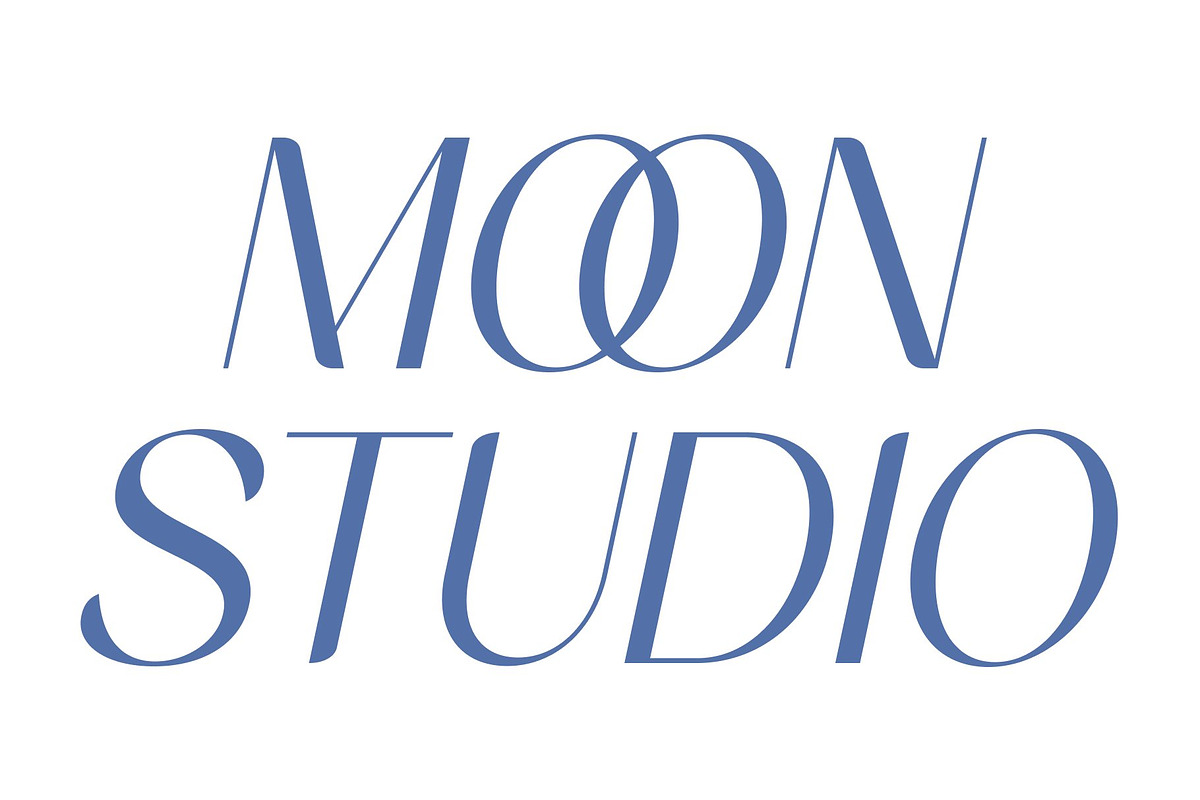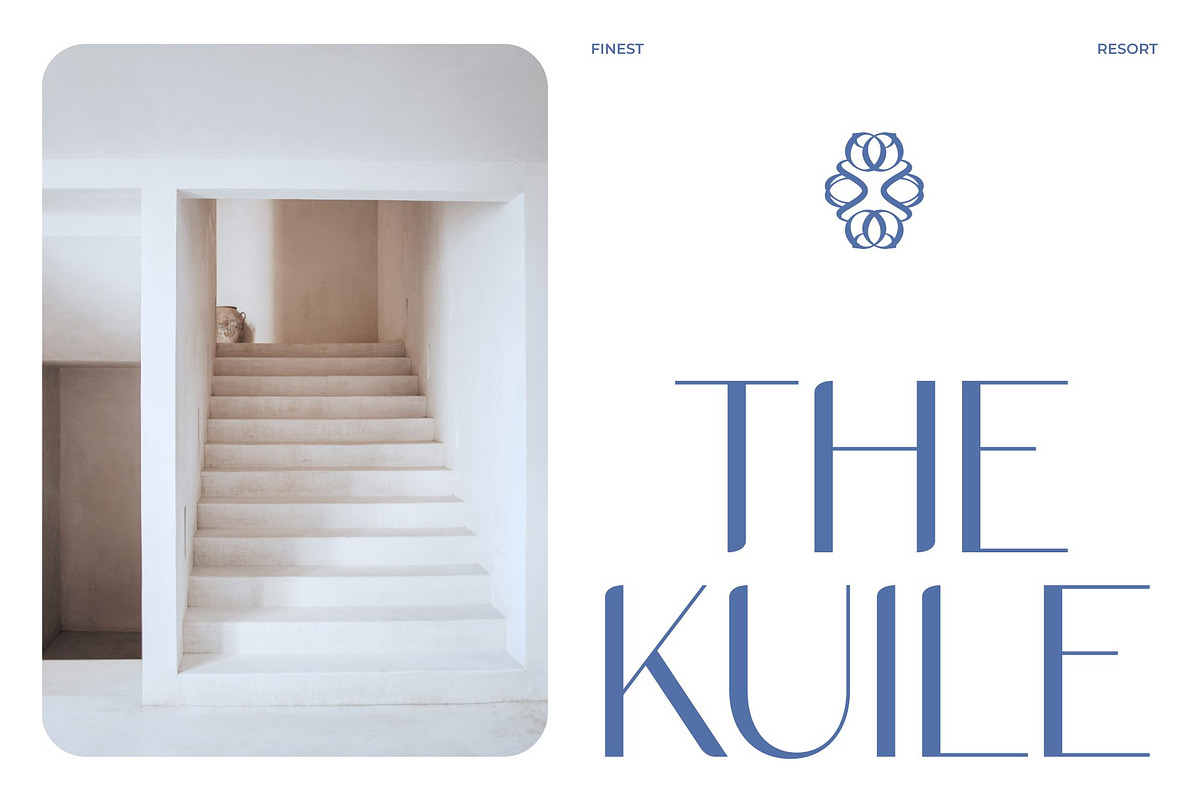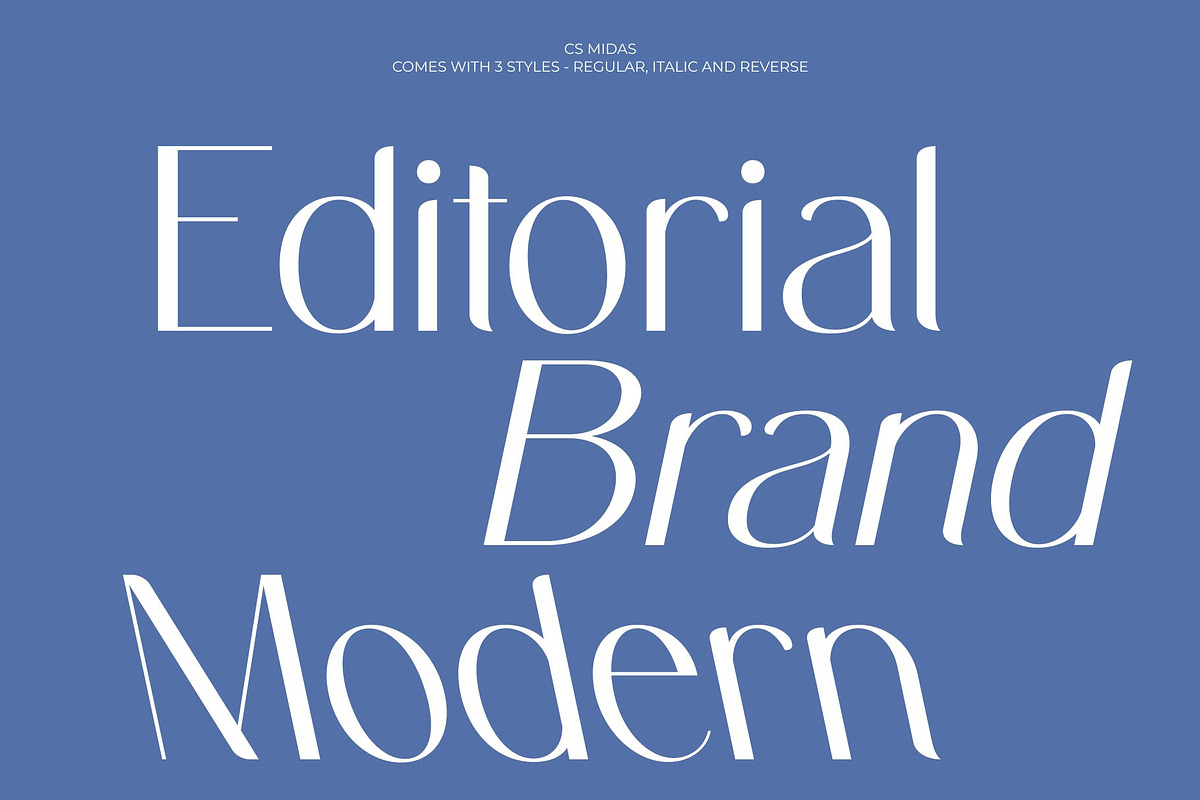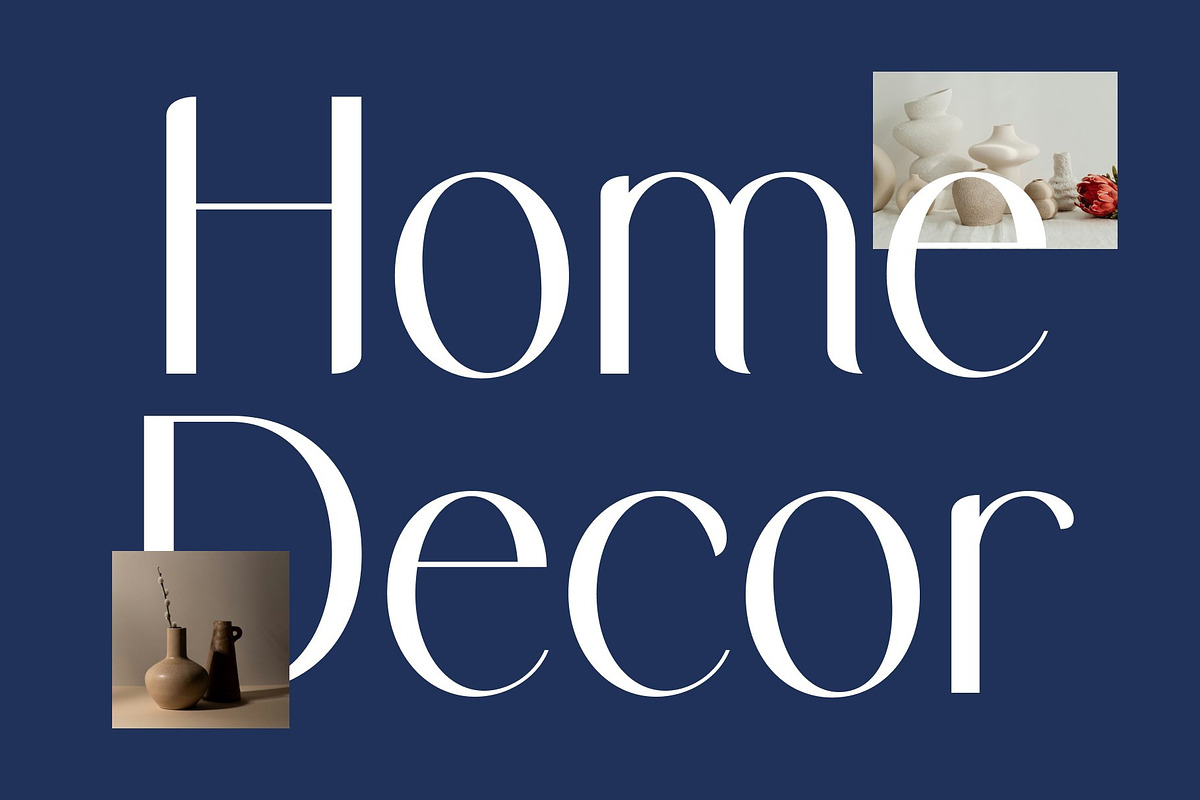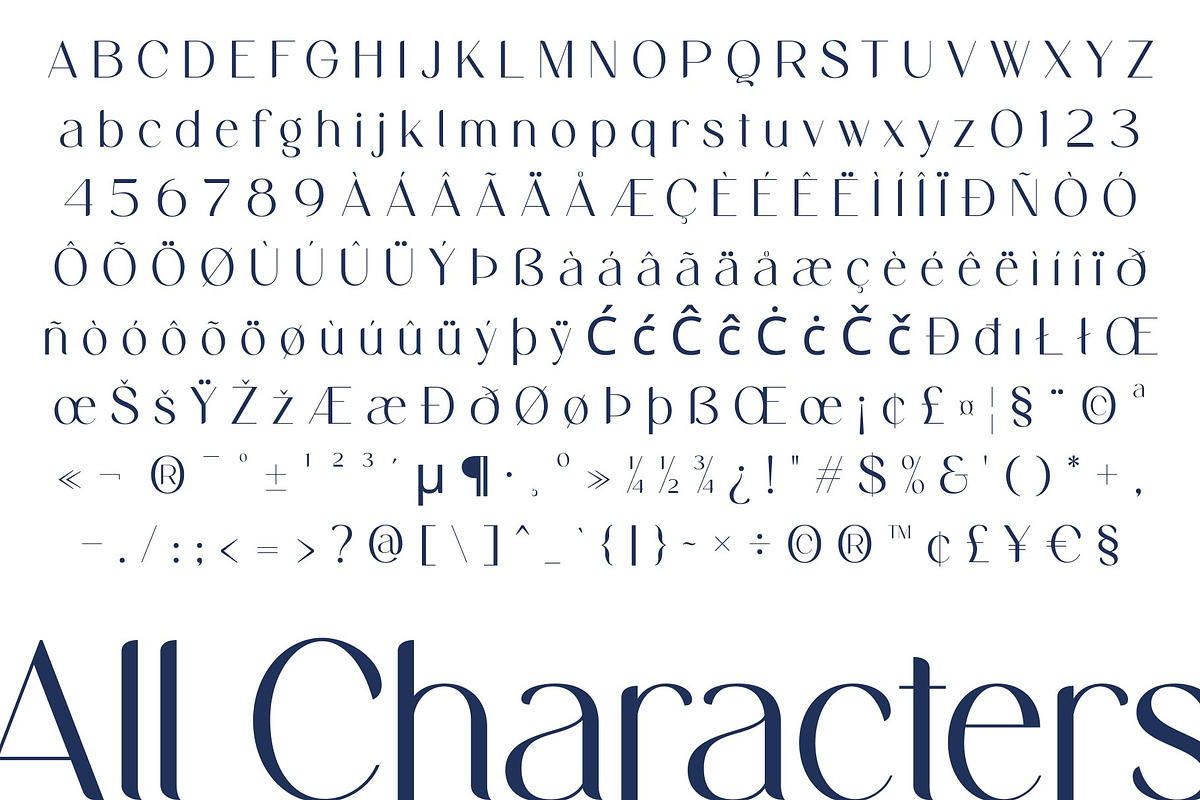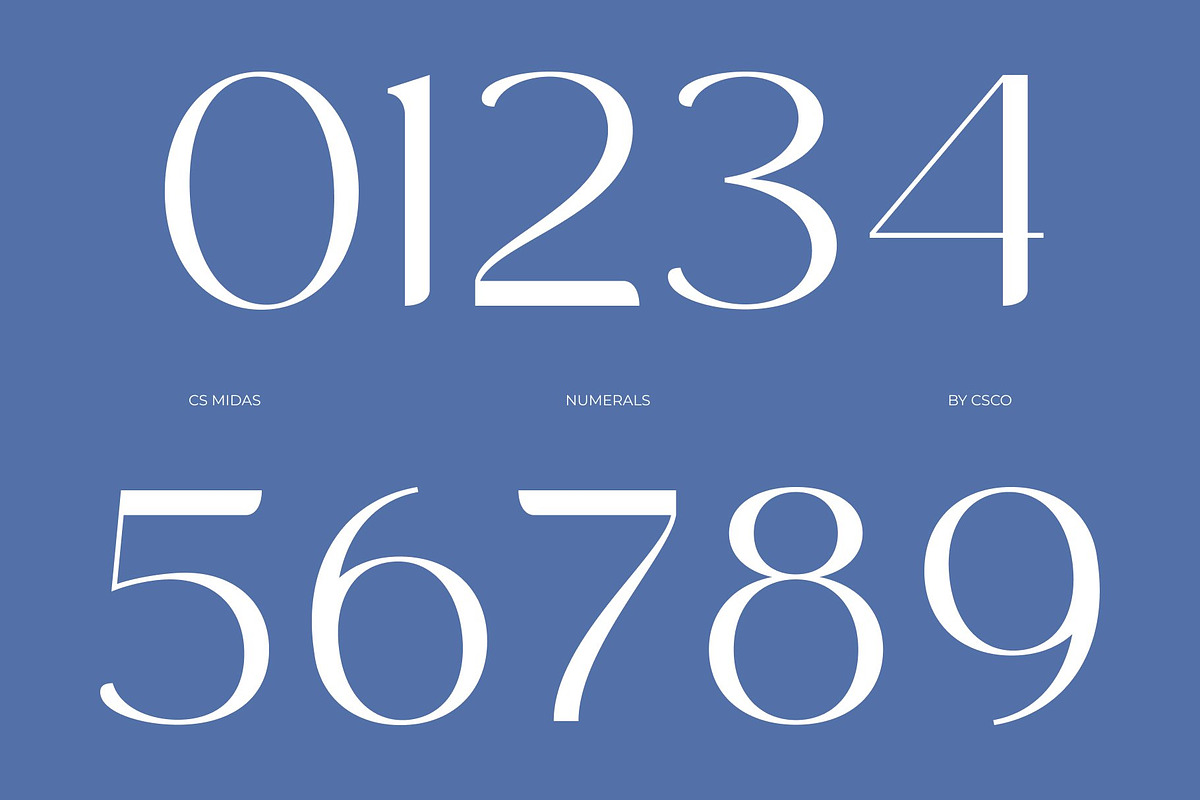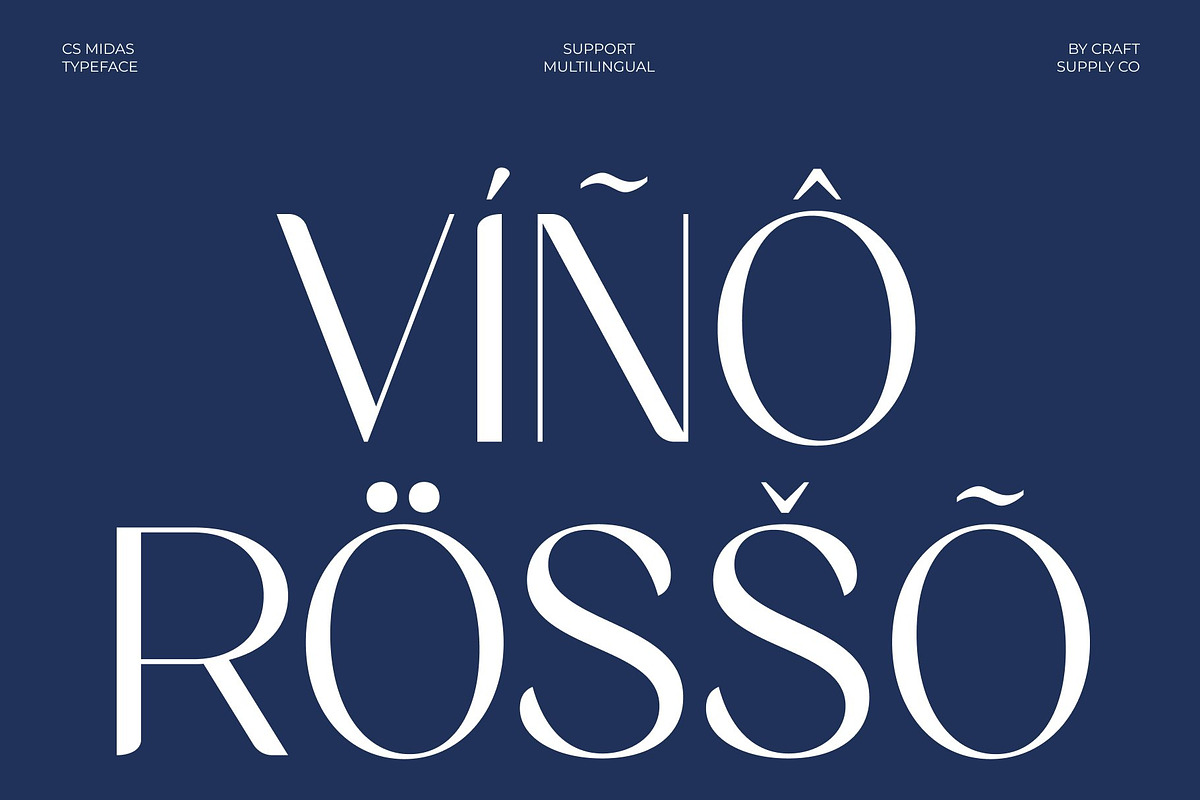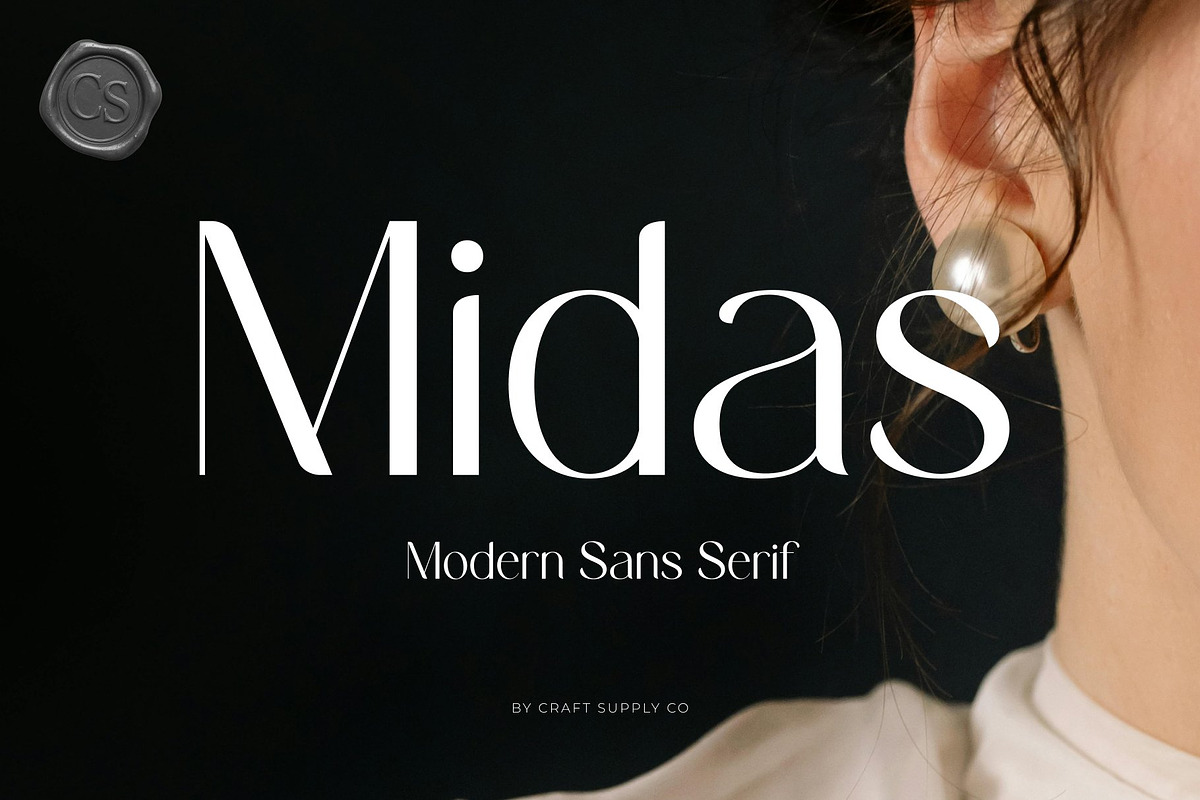
CS Midas – Modern Sans Serif
CS Midas – Modern Sans Serif with Soft Elegant Simplicity
Modern Sans Serif with Clean Contemporary Style This is a clean and soft modern sans serif font designed to bring elegance and clarity into contemporary typography. With its smooth structure and balanced proportions, this typeface creates a refined visual presence that feels calm, stylish, and highly versatile. It is crafted for designers who seek simplicity with a sophisticated touch.
Minimal Curves with Gentle Character The defining feature of this font lies in its minimal curves and soft letterforms that create a warm and approachable personality. These subtle details give the font a graceful rhythm while maintaining a clean and modern appearance. The result is typography that feels elegant without appearing overly decorative.
Elegant Simplicity with Modern Versatility This font embraces minimalist aesthetics while preserving excellent readability and visual harmony. Its clean construction allows it to adapt seamlessly across digital and print applications, making it suitable for both bold headlines and refined editorial layouts. This balance gives the typeface a timeless and contemporary appeal.
Perfect for Editorials, Branding, and Lifestyle Products From editorial design and modern branding to packaging and lifestyle products, this font offers a versatile typographic solution. Its combination of soft elegance, clean minimalism, and modern clarity ensures your designs feel polished, fresh, and visually sophisticated.
CS Midas Regular
CS Midas Italic
CS Midas Reverse Italic